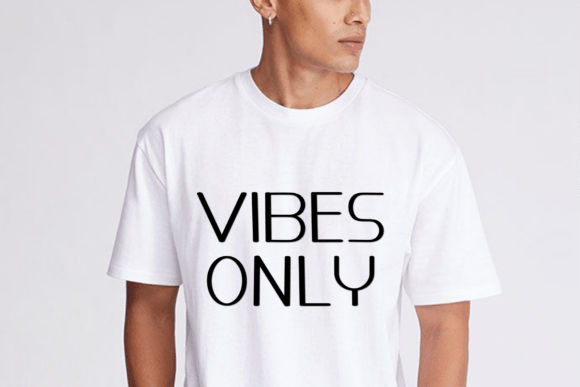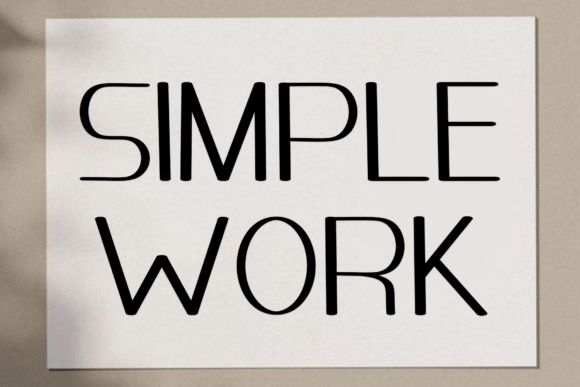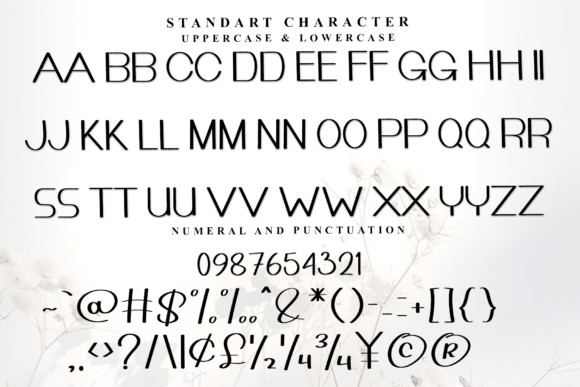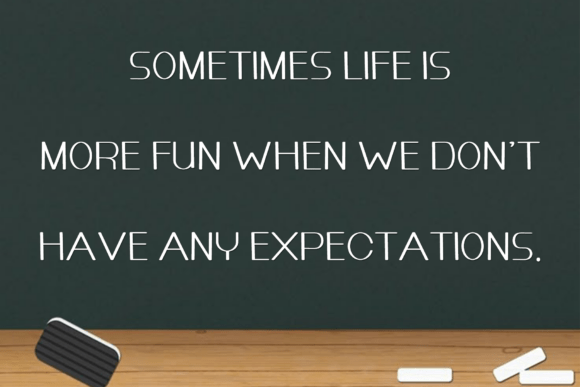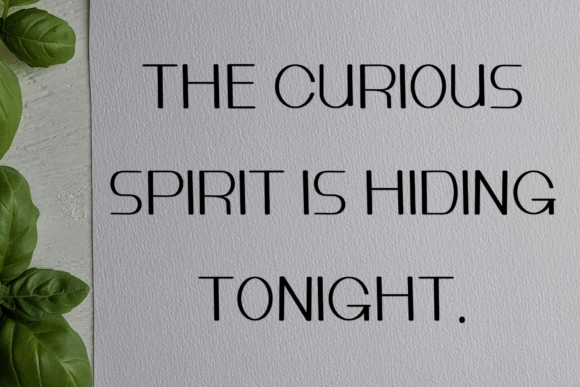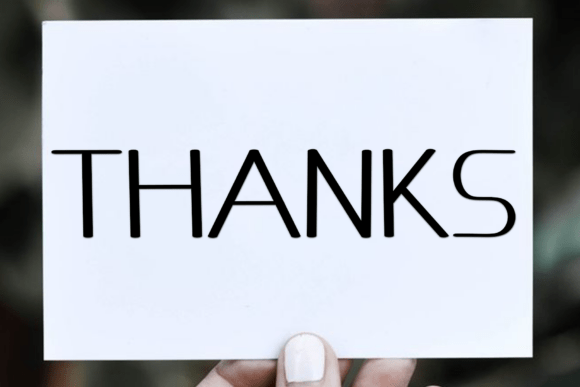
Introduction to Simple Better Font
As you sit at your desk, surrounded by scraps of paper, half-finished designs, and a cup of cold coffee, you suddenly get that spark of creativity. The idea hits you – a beautiful design that will leave everyone in awe. But, where do you start? The key to unlocking your creativity lies in the right tools, and one of the most essential tools for any designer is a great font. This is where the Simple Better Font comes in – a game-changer for your next design project.
With its soft, unique touch and distinctive strokes, the Simple Better Font is the perfect addition to any design resource. Its compatibility with various applications, including Windows and open-source platforms, makes it a valuable asset for designers. Whether you’re working on a creative project or simply need a high-quality font for your design, the Simple Better Font is an excellent choice. And the best part? It’s available for free download, making it a transparent and cost-effective option for your design needs.
Key Features of Simple Better Font
- Comes with a transparent background, allowing for seamless integration into various designs.
- Unique characteristics include clean lines, minimalist design, and a subtle yet distinctive aesthetic.
- Perfect for use in a variety of creative projects, including graphics, logos, and digital art.
Honest Review: Simple Better Font
As a designer, I’m always on the lookout for high-quality design resources to elevate my creative projects. Recently, I stumbled upon the Simple Better Font, and I’m excited to share my thoughts on this font.
- ✨ The font has a clean and modern aesthetic that’s perfect for a variety of creative projects, from digital to print.
- ✨ The font comes with a transparent background, making it easy to customize and pair with any design element.
- ⚠️ The font is not as versatile as some other fonts on the market, and it may not be the best choice for projects that require a lot of customization.
Overall, I’m impressed with the Simple Better Font. It’s a great addition to any designer’s toolkit, and it’s perfect for projects that require a clean and modern aesthetic. While it has some limitations, I think it’s a great value for the price (or lack thereof, given that it’s free to download!).
Simple Better Font
Experiment with different font sizes, colors, and combinations to create unique and eye-catching designs. Use the Simple Better Font in conjunction with other design elements to create a cohesive look.
The Simple Better Font is perfect for:
- Graphic design and visual identity
- Typography and font pairing
- Web design and digital projects
Comparison to Simple Better Font: Open Sans has a more modern feel and is often used in digital products, whereas Simple Better Font has a more classic and elegant feel.
Lato is a high-quality font that is designed for use in digital designs, including websites, mobile apps, and creative projects. It is a free download and offers a transparent background, making it perfect for designs requiring a clean and modern look. Lato is a great alternative to Simple Better Font for projects requiring a strong and confident tone.
Comparison to Simple Better Font: Lato has a more geometric feel and is often used in modern and minimalist designs, whereas Simple Better Font has a more classic and elegant feel.
Montserrat is a high-quality font that is designed for use in digital designs, including websites, mobile apps, and creative projects. It is a free download and offers a transparent background, making it perfect for designs requiring a clean and modern look. Montserrat is a great alternative to Simple Better Font for projects requiring a strong and urban tone.